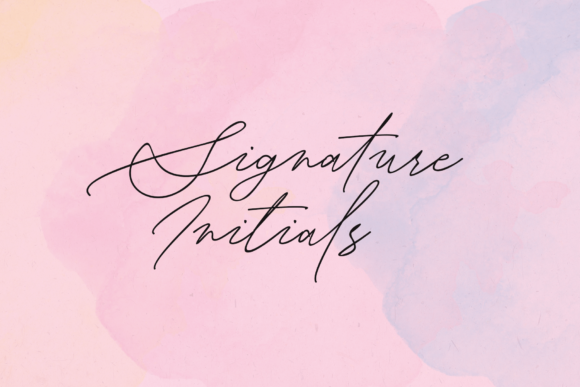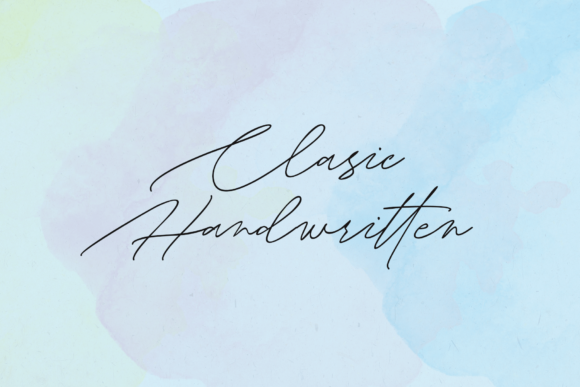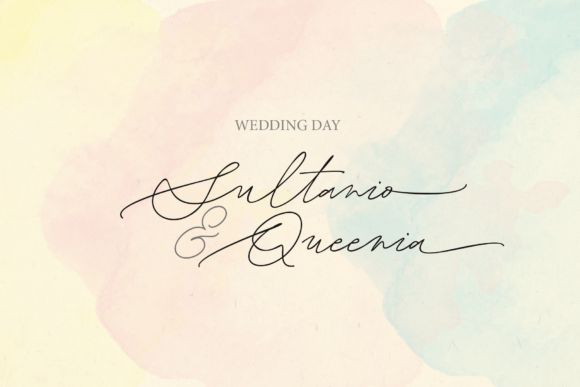
Introduction to Martoni Font
As a designer, you’ve likely found yourself stuck in a creative rut, searching for the perfect font to bring your vision to life. Remember that moment when you stumbled upon the perfect script font, and your entire design project transformed? That’s exactly what we’re about to share with you – the secret to elevating your creative project with the stunning Martoni Font.
With its delicate and elegant handwriting style, the Martoni Font is an ideal choice for designers looking to add a touch of romance and personality to their designs. Whether you’re crafting wedding invitations, designing greeting cards, or working on any other project that requires a high-quality, custom look, this font is sure to impress. Plus, with its transparent background and free download option, it’s an invaluable design resource that’s easily accessible to everyone.
Key Features of Martoni Font
- Supports transparent backgrounds, allowing for seamless integration into designs with complex backgrounds.
- Designed as a versatile design resource, suitable for use in logos, typography, and other creative applications.
- Unique, modern design style sets it apart from other fonts, making it an excellent choice for creative projects.
Honest Review: Martoni Font
I recently stumbled upon the Martoni Font, and I must say, it’s a great addition to any designer’s toolkit. As a design resource, it offers a high-quality option for creative projects that require a unique and stylish touch.
- Its elegant and modern design makes it perfect for a wide range of applications, from branding to typography-heavy projects.
- The transparent background feature allows for seamless integration with other design elements, giving you complete creative control.
- ⚠️ The Martoni Font may not be suitable for projects that require a bold, eye-catching font, as its design is more understated.
Overall, I’m impressed with the Martoni Font, and I think it’s a valuable addition to any designer’s collection. Its high quality, free download option, and transparent background make it an excellent choice for a wide range of creative projects.
Tips for Getting the Most Out of Martoni Font
For optimal results, use the Martoni Font in conjunction with a high-quality design project. Experiment with different font sizes, colors, and transparency levels to create a visually appealing design. Additionally, consider using the font in conjunction with other design elements, such as images and graphics.
The Martoni Font is ideal for a variety of creative projects, including business cards, brochures, and websites. Its high-quality design and transparent background make it a versatile font that can be used in a range of applications.